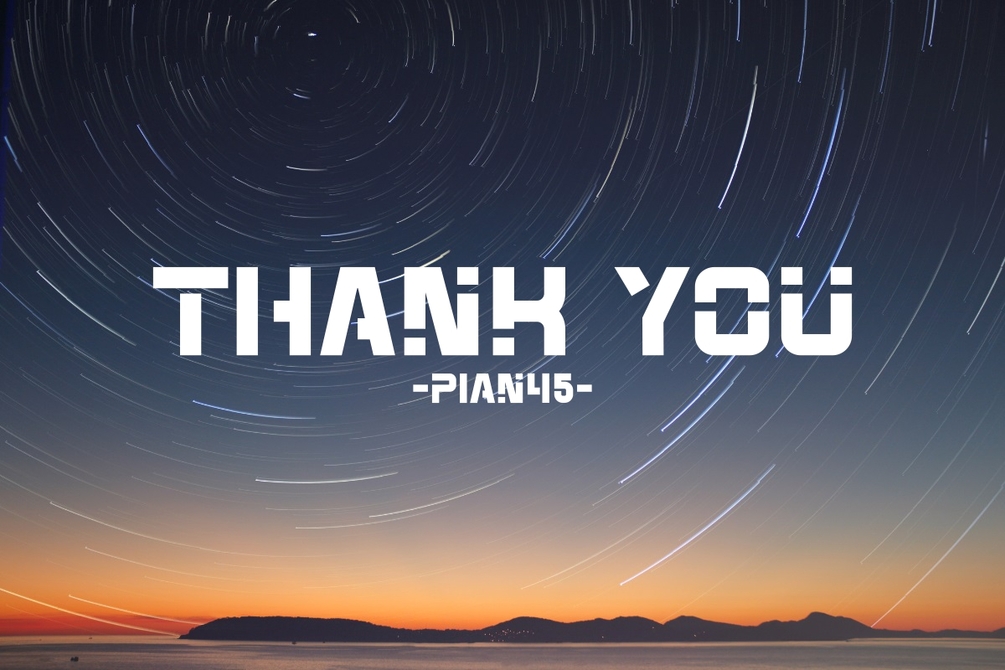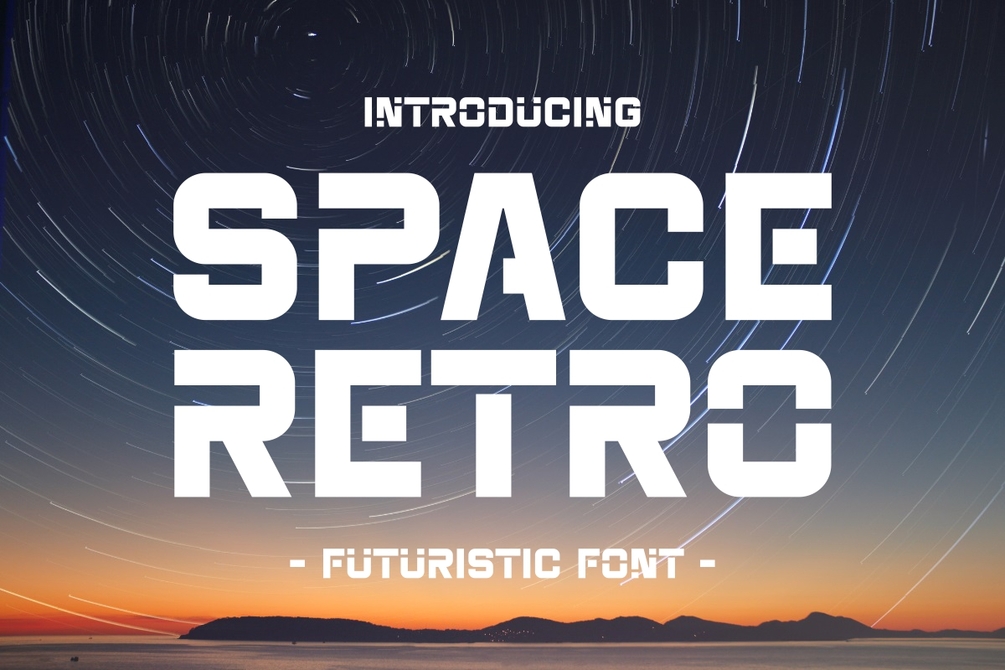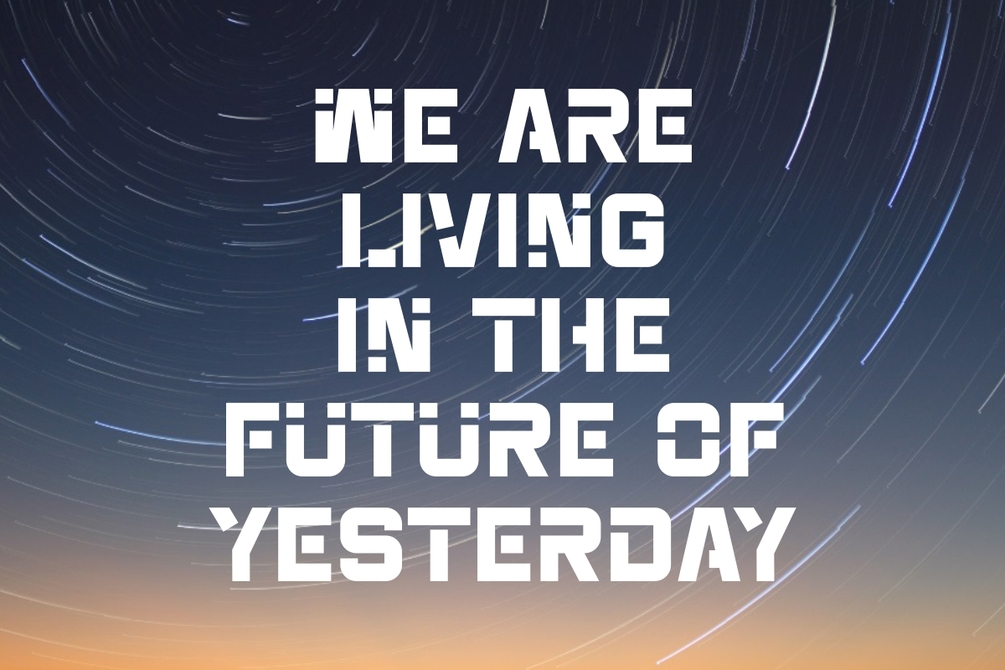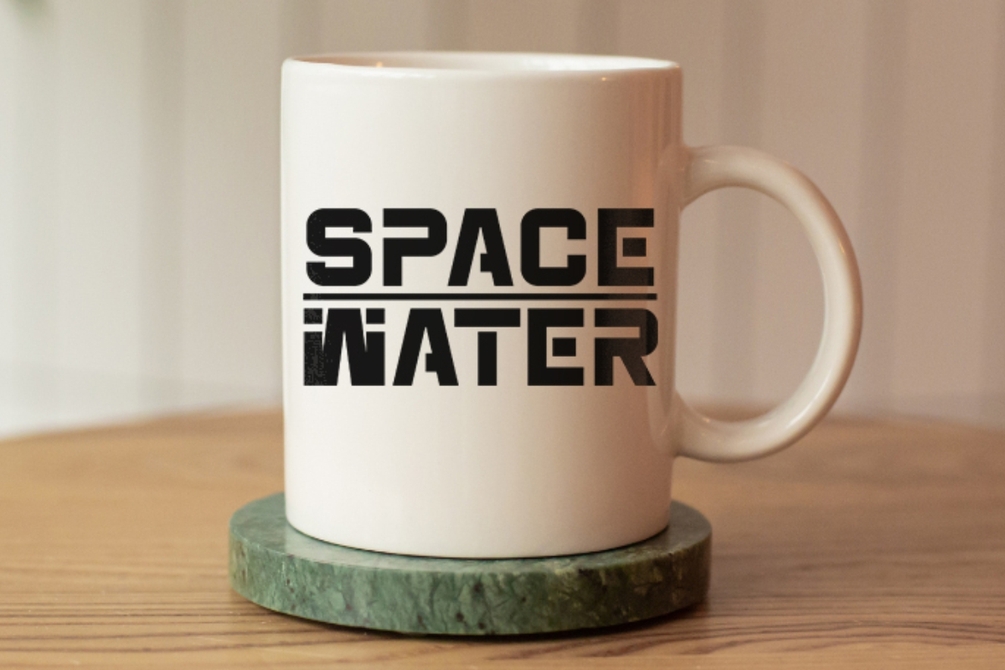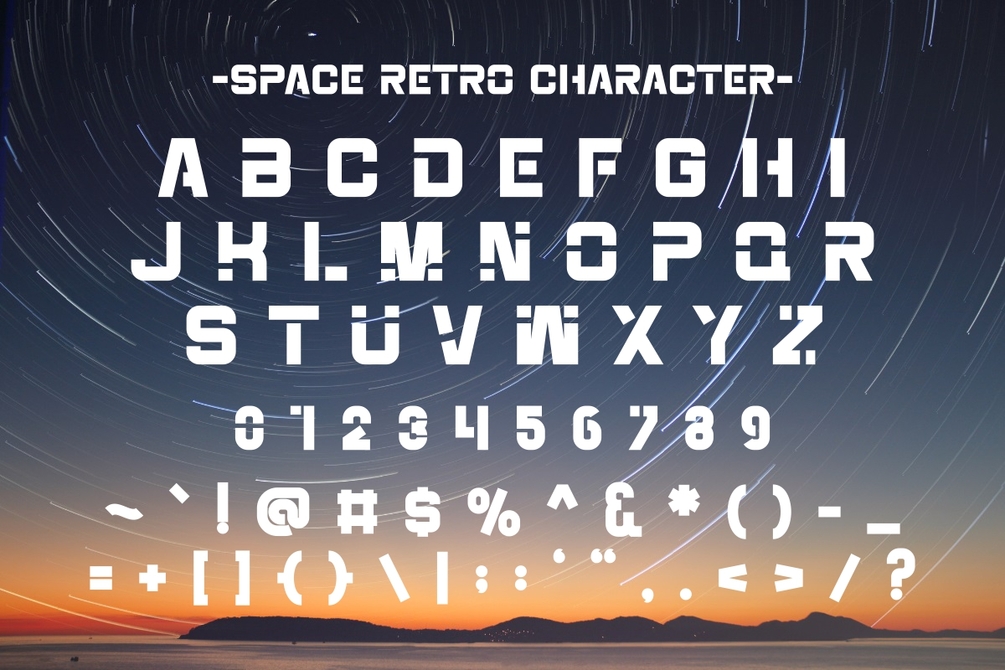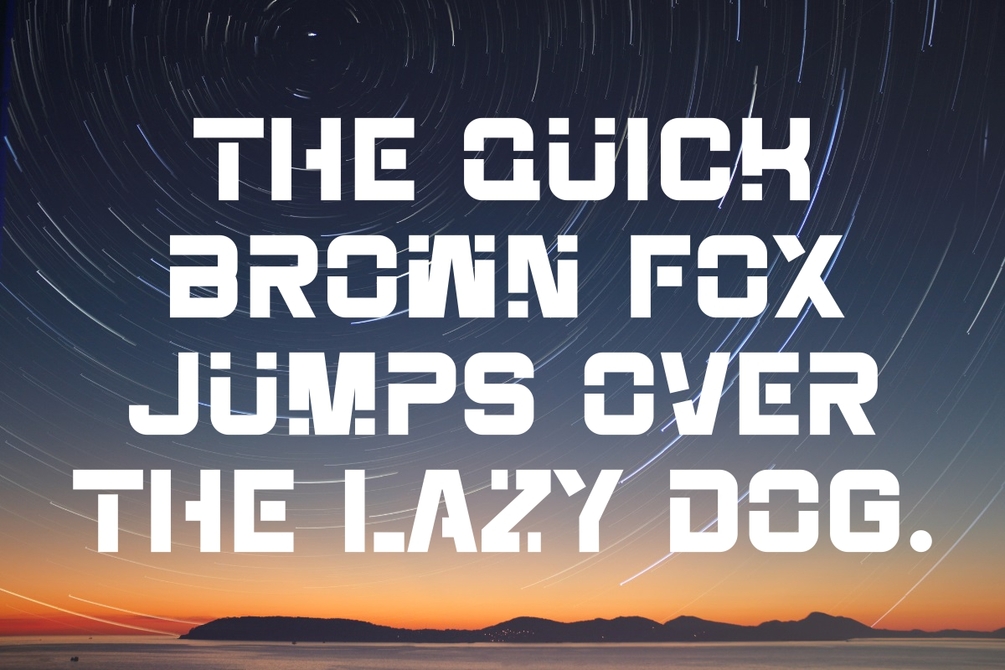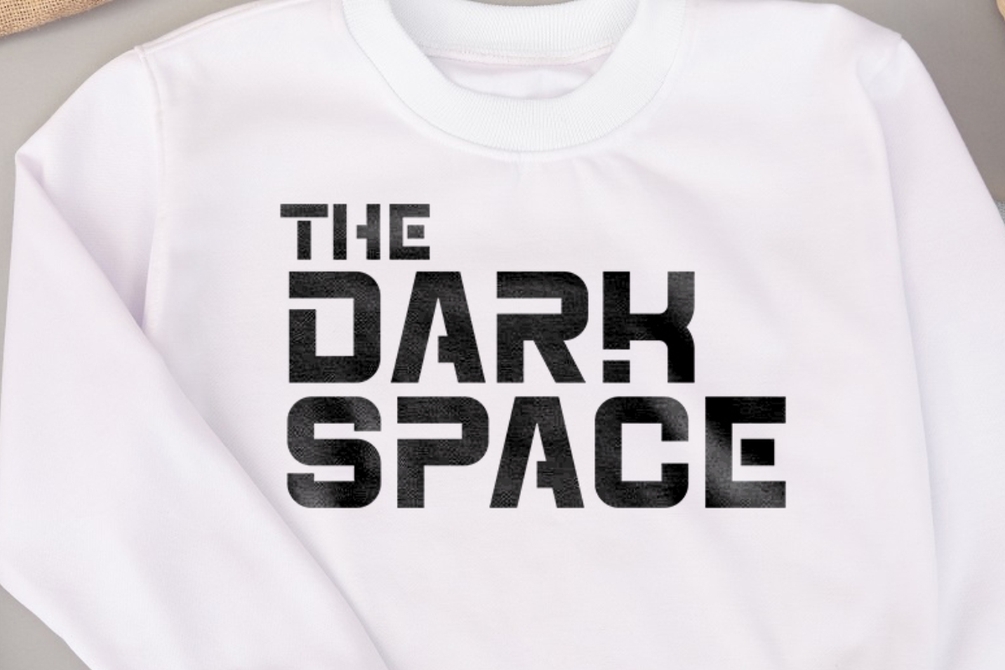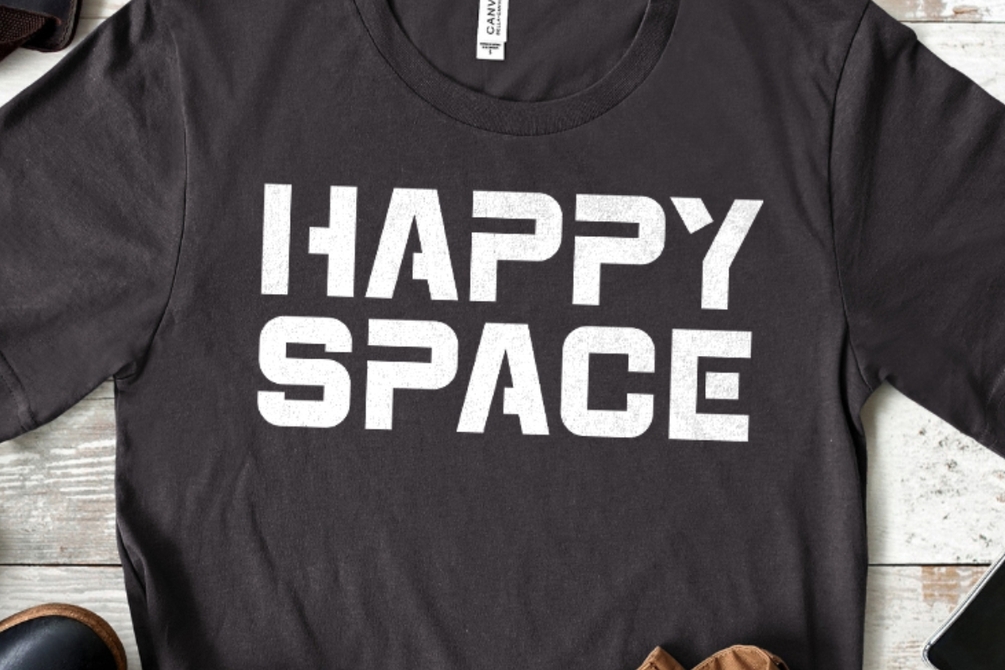
Space Retro - Futuristic Font
Space Retro is a modern retro futuristic font that brings a nostalgic yet forward-looking vibe to your design. With its sleek lines and vintage-inspired elements, this display font takes you on a journey through space and time. Perfect for adding a touch of retro futurism to your projects, Space Retro blends the best of the past and the future.